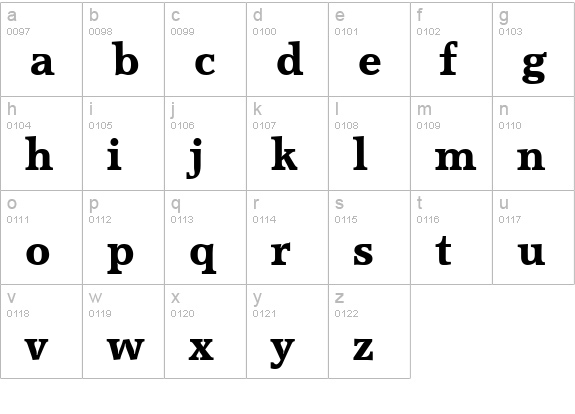
Accord SF Bold is a strong, high-contrast variant in the Accord typeface family \xE2\x80\x94 well suited to headlines, attention-grabbing titles, and strong calls-to-action.
Accord SF Bold font is a striking and versatile typeface that exudes modern elegance and sophistication. With its bold and confident design, Accord SF Bold makes a bold statement in any creative project or design application. This font is perfect for headlines, titles, logos, and any other text that needs to stand out. Its clean lines and sharp edges give it a contemporary and professional look that is sure to capture attention. The best part? Accord SF Bold font is available for free download at FontsMarket.com. This means you can easily access this high-quality font without any cost, making it a valuable addition to your font collection. Whether you are a designer, artist, or content creator, Accord SF Bold font offers endless possibilities for creating visually stunning and impactful designs. Download Accord SF Bold font today and elevate your projects with its bold and dynamic appeal.